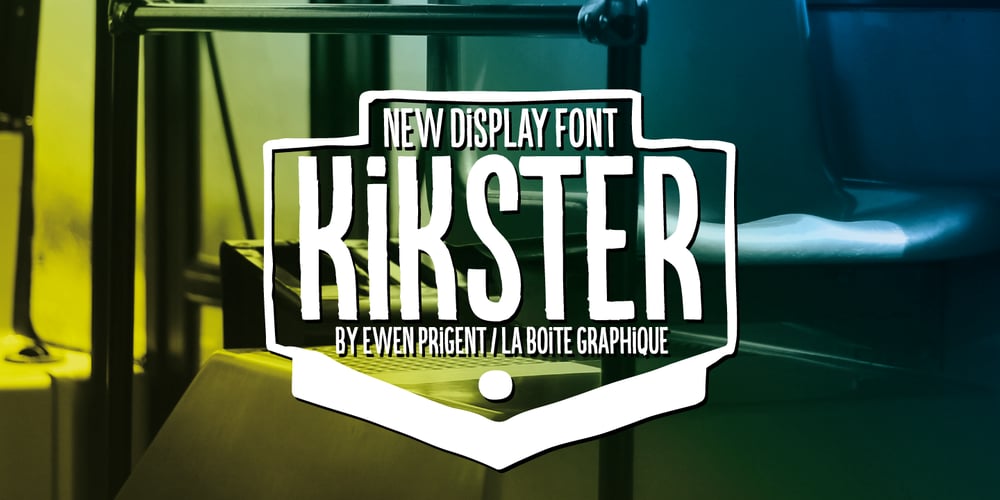
Kikster Font Family was designed by Ewen Prigent and published by La Boîte Graphique. Kikster contains 6 styles and family package options. Kikster is a hand made font ideal for your graphic project.